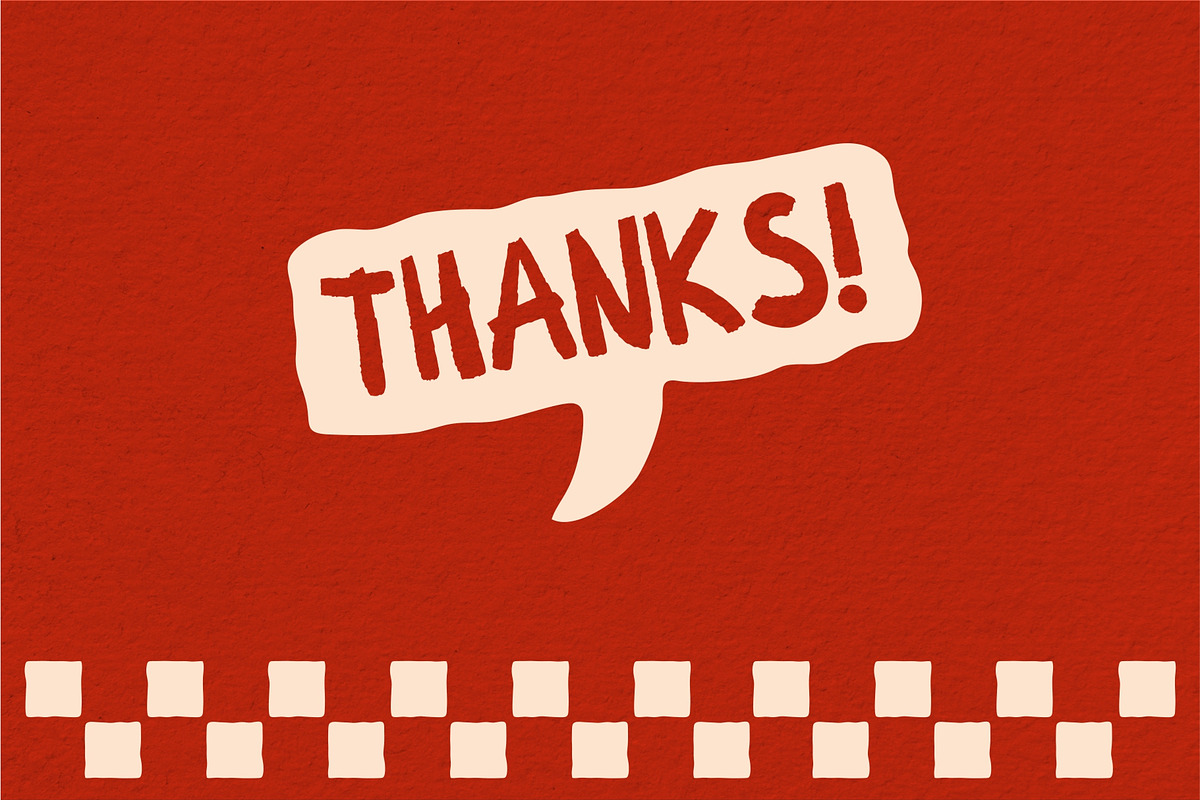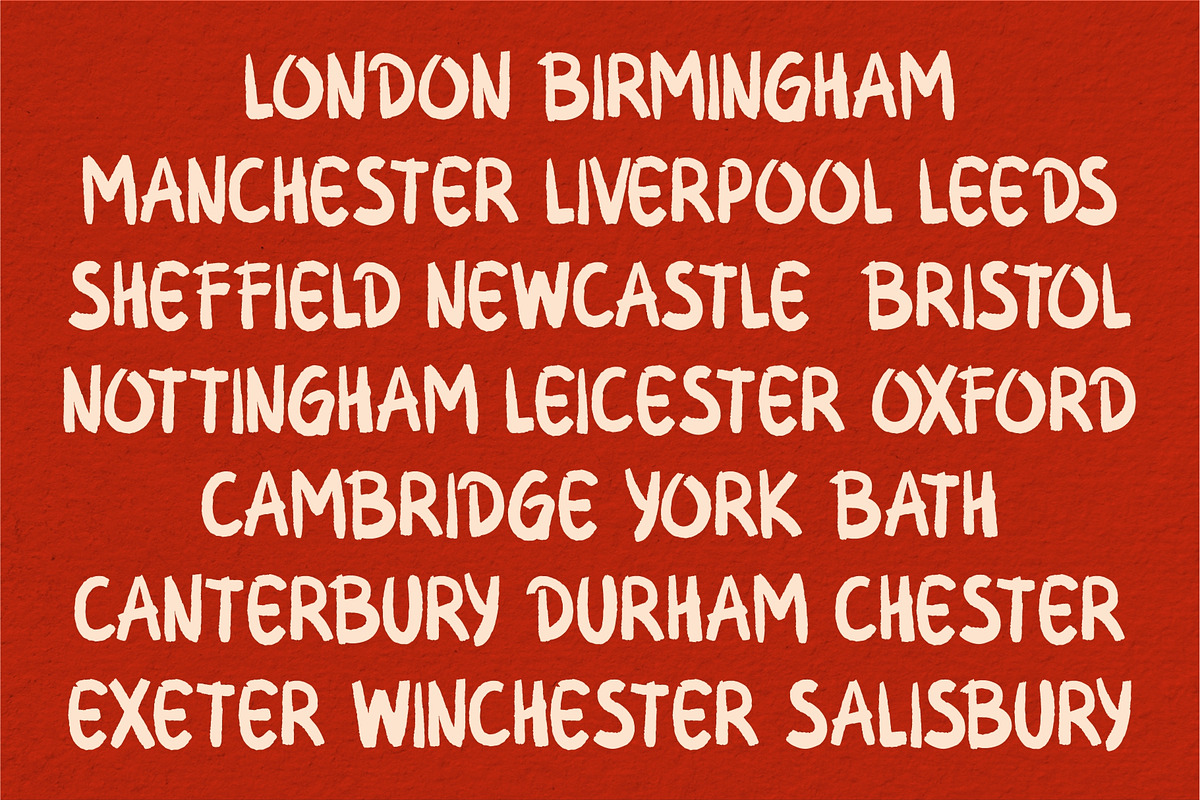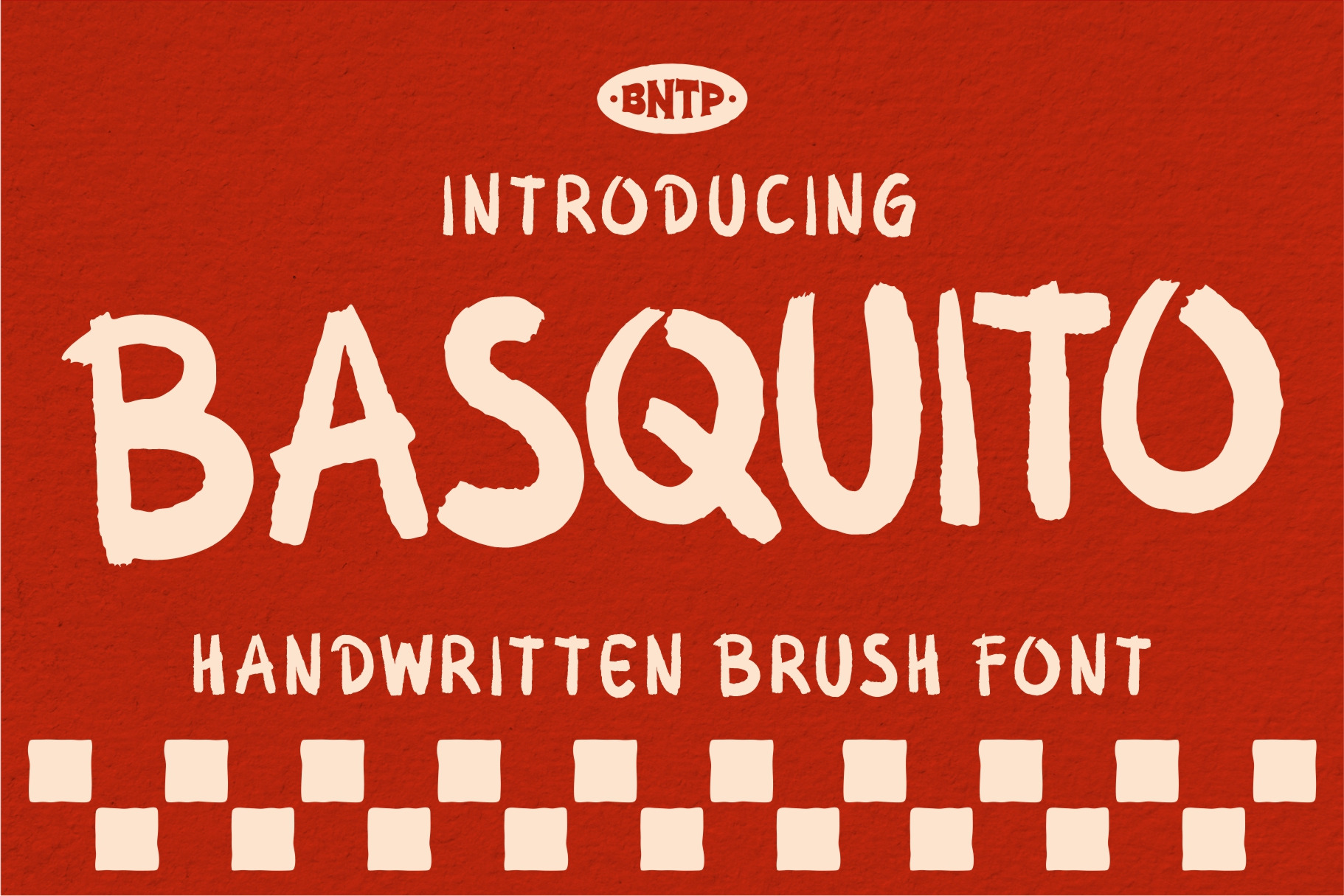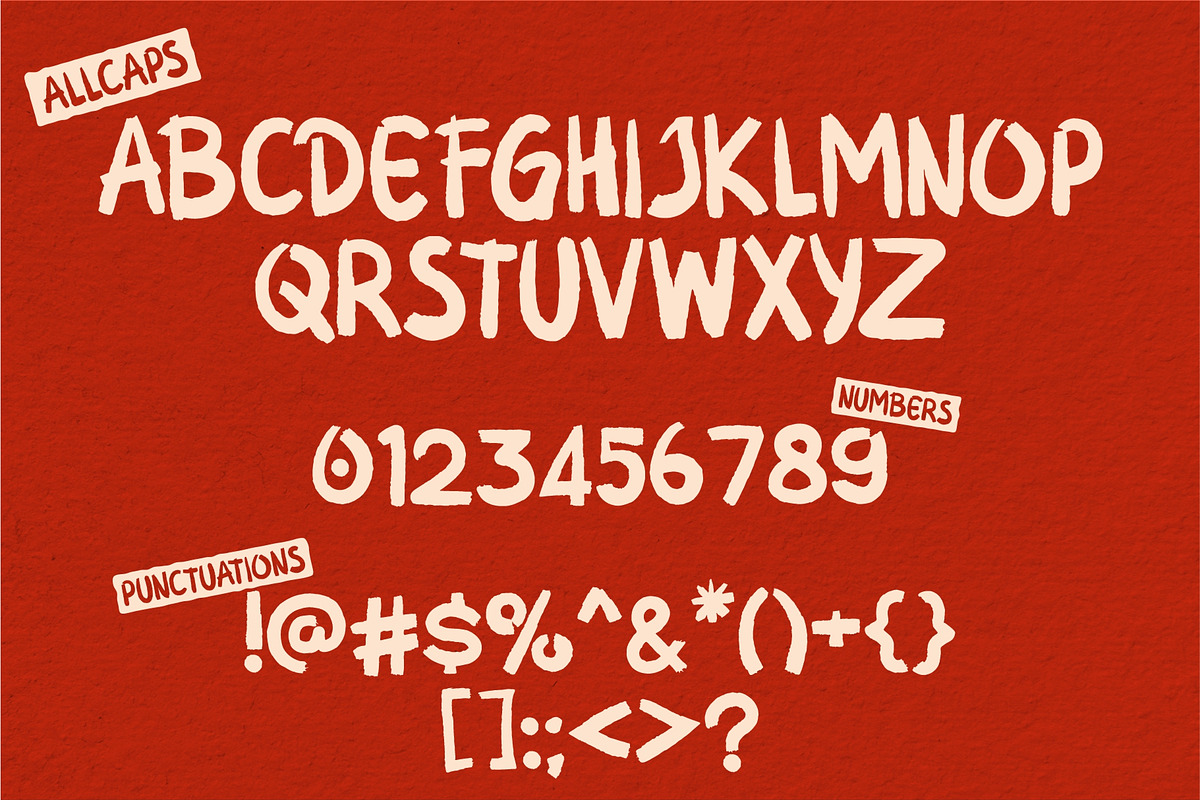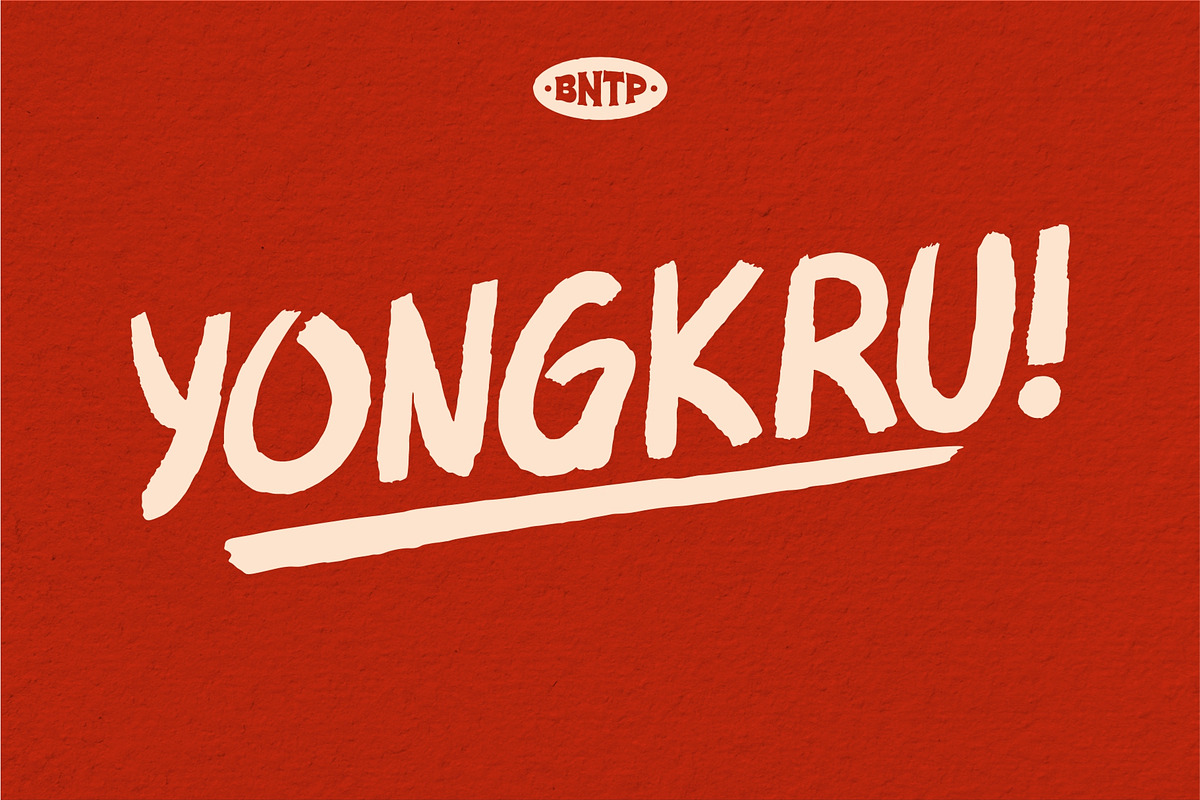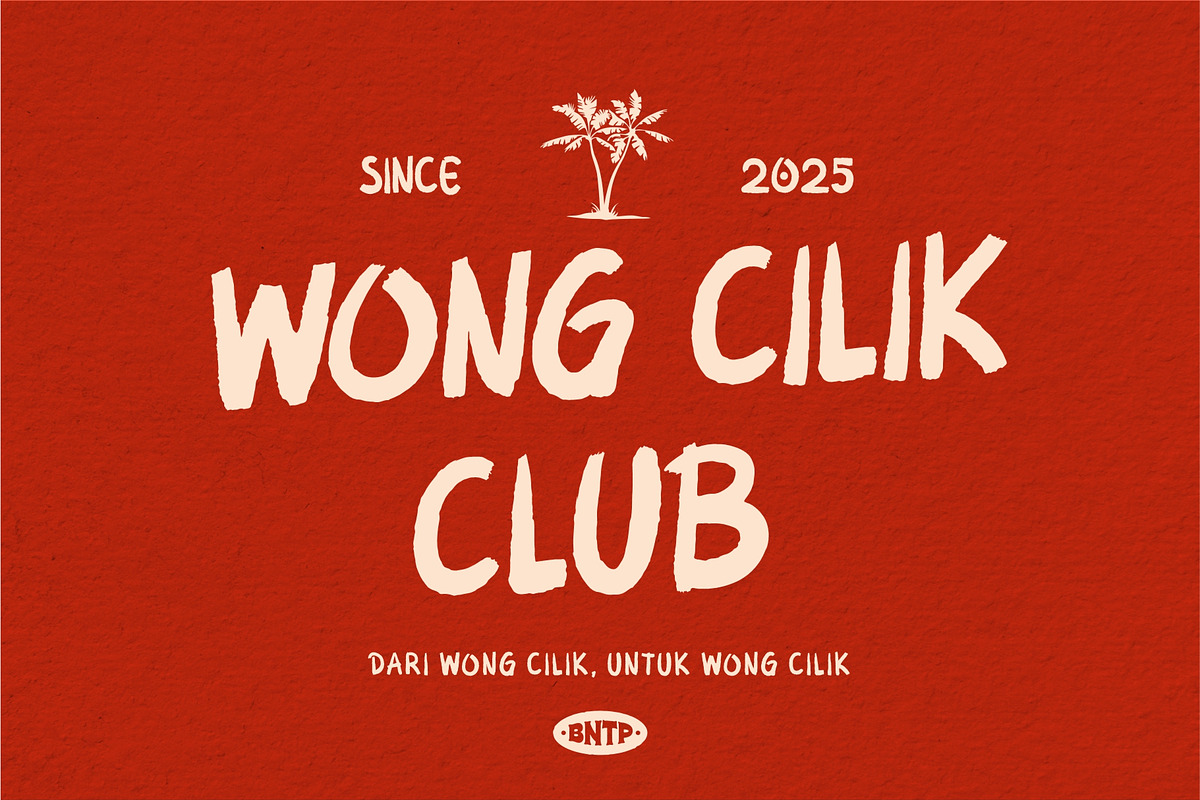
Basquito - Handwritten Brush Font
Basquito - Handwritten Brush Font is It is a font handcrafted using a brush and ink. This font features a strong grunge and artistic theme, making it perfect for poster design, t-shirts, branding, and other creative artworks.
Allcaps Numbers and punctuation